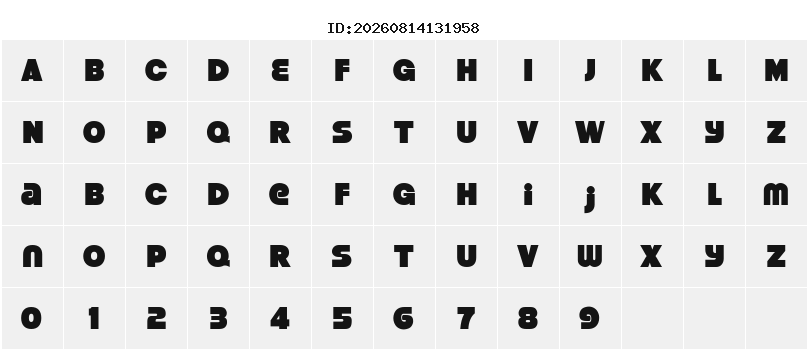
• Font Name: Strenuous
• Font ID: RayLarabie: Strenuous: 2001
• Full Font Name: Strenuous
• Version: Version 1.0; 2001; initial release
• PostScript Name: Strenuous
• Character Count: 301
• Designer: Ray Larabie
About Strenuous.ttf
Strenuous.ttf is a modern, elegant sans-serif font designed for ultimate readability and visual harmony. Perfect for branding, headlines, web design, and print materials.